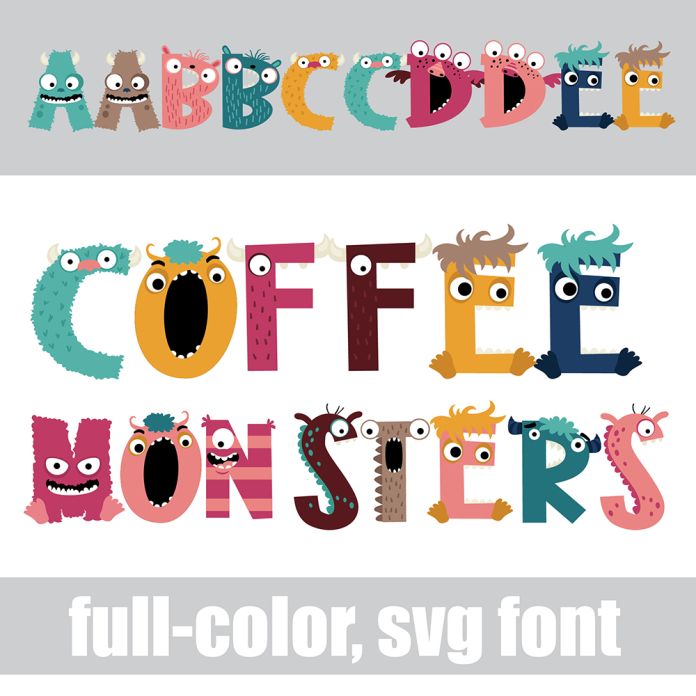
This full-color font features letters that look like coffee-loving monsters. There is an alt version you can access through your system's character map that contains additional colors of all the letters. This font works best for titles, displays, posters and more. Please note color fonts will show as black in non compatible programs. This font type is compatible with Silhouette Studio.